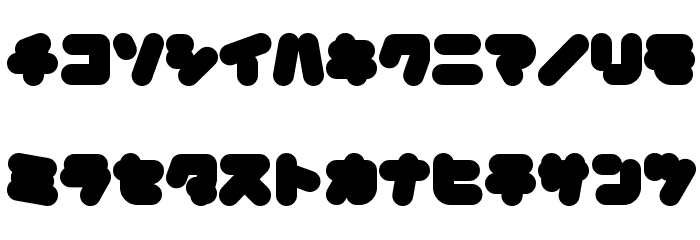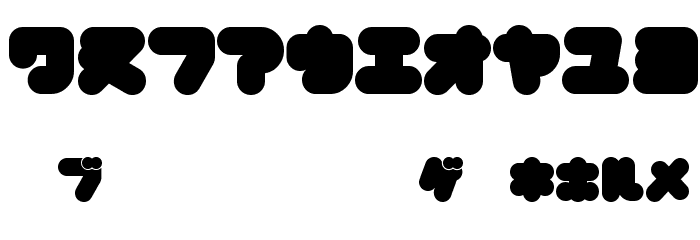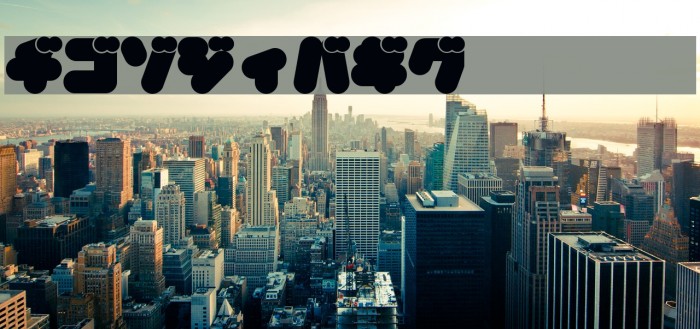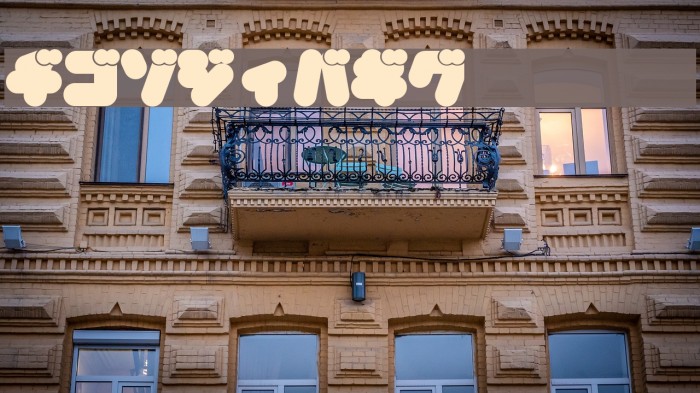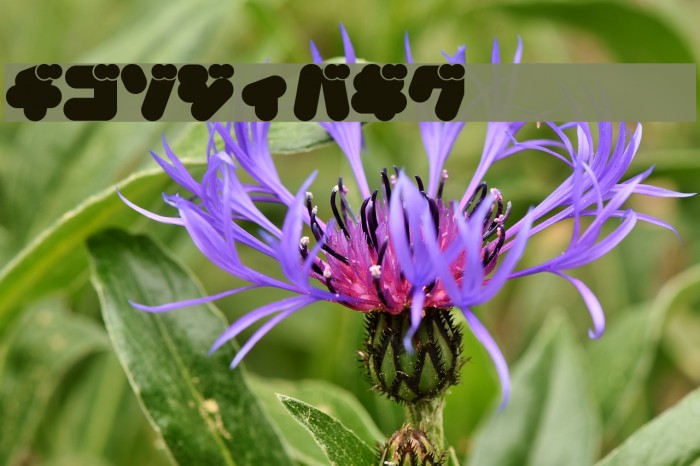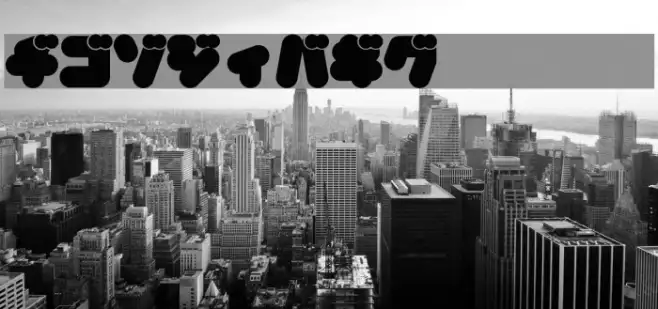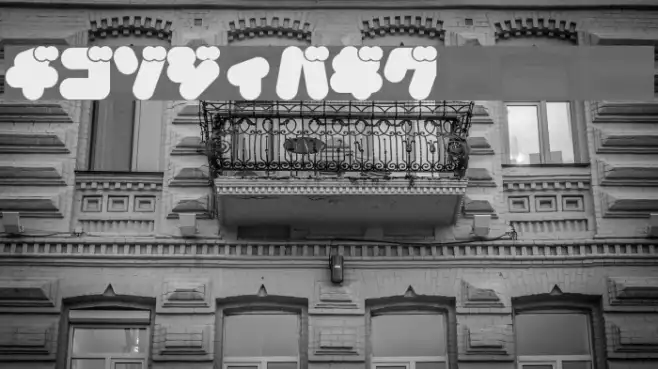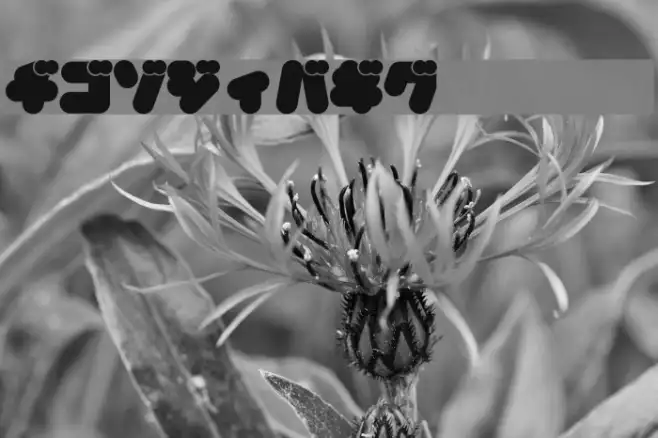
MechamaruKat Font
This font features a bold and playful style with rounded, bubble-like characters. Each letter is designed with a consistent thickness, giving it a uniform appearance. The characters are closely packed, creating a compact and cohesive look. This font's whimsical nature makes it stand out, with each letter appearing almost as if it is inflated. The smooth curves and lack of sharp edges contribute to its friendly and approachable feel. The overall design is modern and suitable for projects that require a fun and engaging typeface.
A bold, playful font with rounded, bubble-like characters.
- Proposed Projects: Ideal for children's books, playful branding, posters, and party invitations.
- Character Spacing: Tight